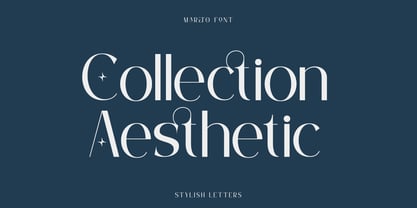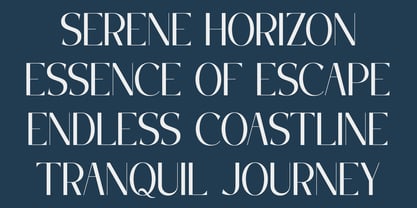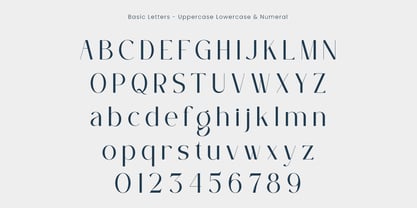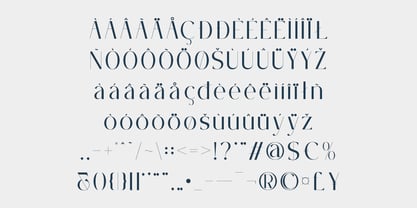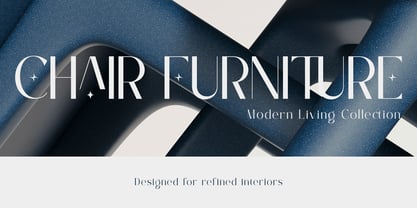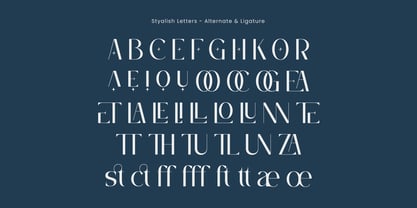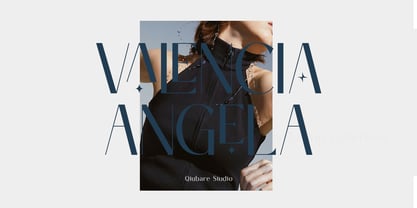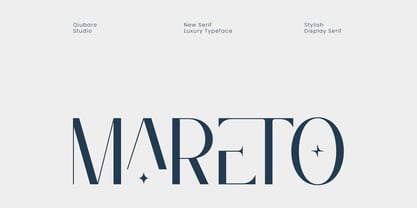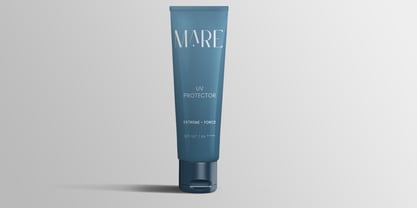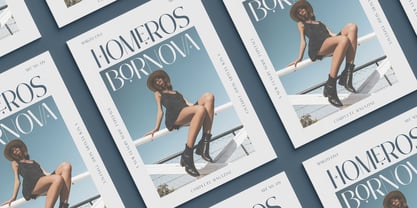
Mareto
Mareto is a modern elegant sans serif font crafted with a luxurious and stylish touch. Designed for high-end branding, fashion editorials, and sophisticated visual projects, this typeface combines clean structure with unique ligatures and refined alternates.
With its distinctive character and balanced contrast, Mareto delivers a premium look that stands out effortlessly in both digital and print designs.
Perfect for:
* Branding & Logo Design
* Fashion Magazine & Editorial
* Luxury Packaging
* Social Media Content
* Website Typography
* Invitations & Headlines
✨ FEATURES
* Uppercase & Lowercase
* Numbers & Punctuation
* Stylish Alternates
* Ligatures
* Multilingual Support
* Clean & Modern Serif Style
⚡ WHY CHOOSE MARETO?
Mareto is not just a font — it’s a statement of elegance and modern luxury, designed to elevate your brand identity and visual storytelling.